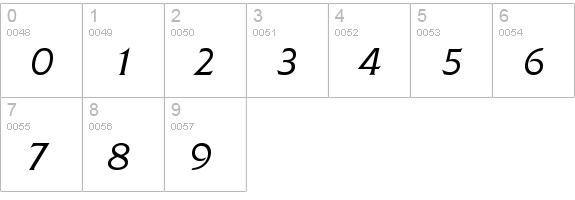
FrizQuadrataEF-RegularIta is a stylish and elegant font that exudes sophistication and modernity. Its italicized design adds a touch of flair and creativity to any project. The sharp edges and clean lines of this font make it perfect for both headers and body text, ensuring readability while maintaining a sense of sophistication. What sets FrizQuadrataEF-RegularIta apart is that it is available for free download at FontsMarket.com. This means that designers and creatives can access this high-quality font without any cost, making it a valuable addition to any font library. Whether you are working on a branding project, website design, or any other creative endeavor, FrizQuadrataEF-RegularIta is a versatile and reliable choice that will elevate your work to the next level. Download it today and unleash your creativity with this beautiful font.